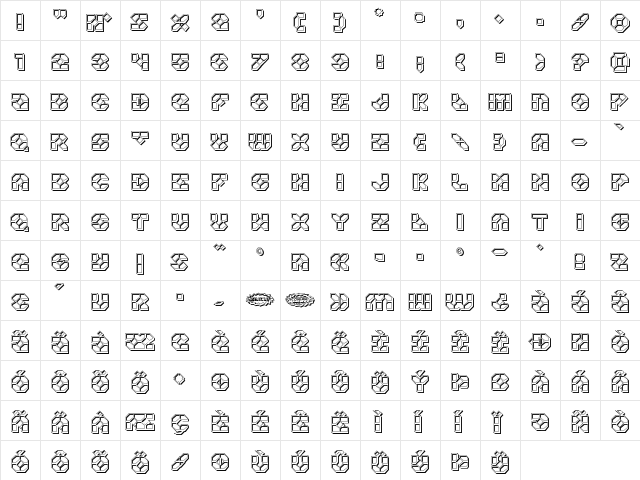
Zoom Runner Engraved Regular
Design Context for Zoom Runner Engraved Typeface
Zoom Runner Engraved is built around its visual character rather than neutral utility — its distinctive forms are designed to make an impression at display sizes.
Font Pairing: Pair with a clean neutral sans-serif for body copy to let Zoom Runner Engraved's character lead without overwhelming the composition.
Pro Tip: Use Zoom Runner Engraved exclusively at display sizes — it was designed to be seen, not read at length. Let a neutral companion handle body copy.